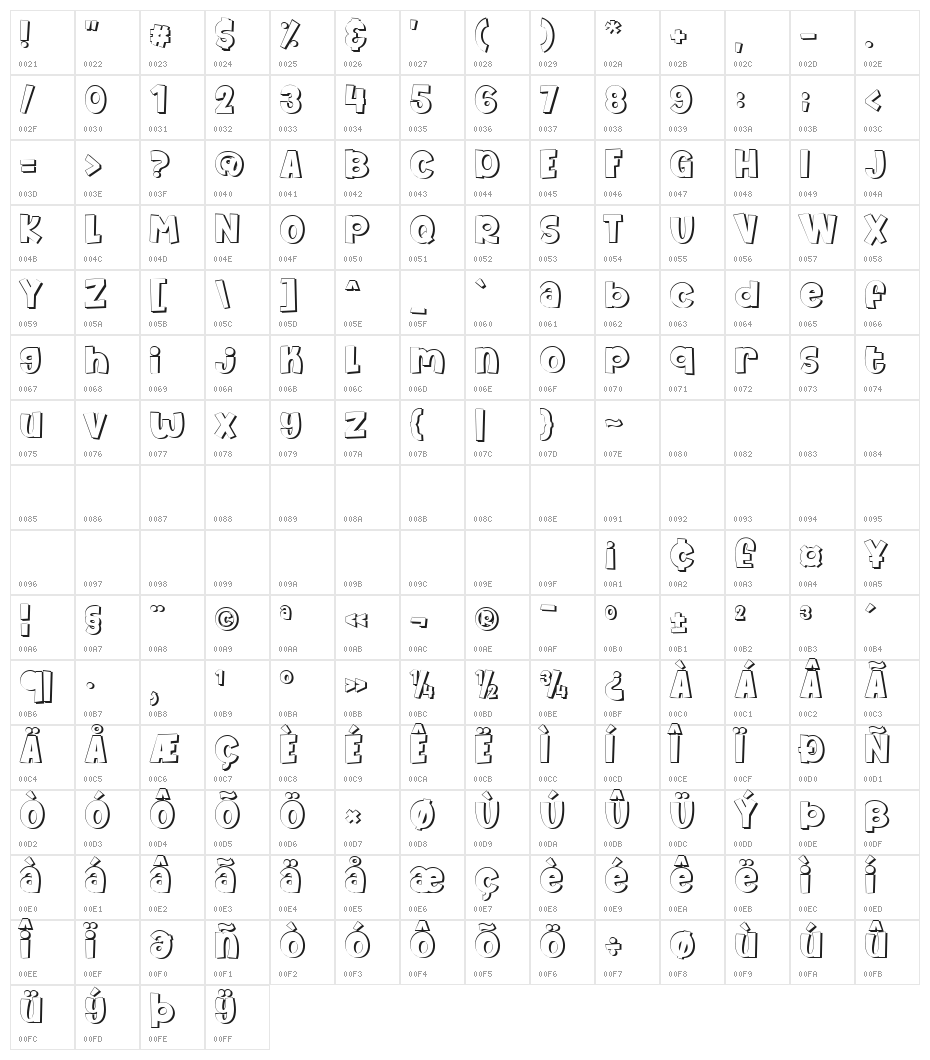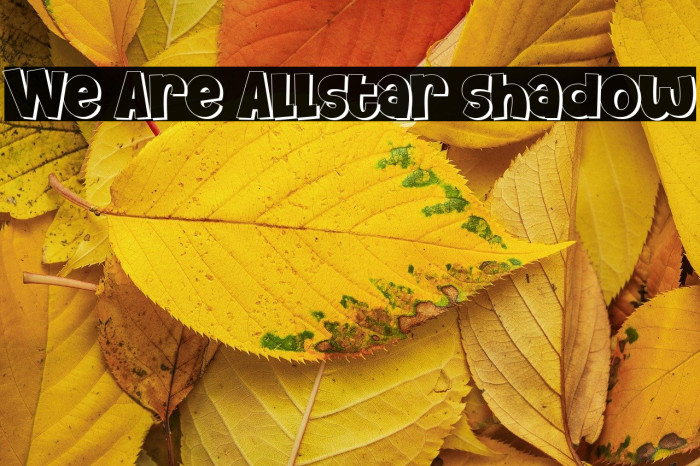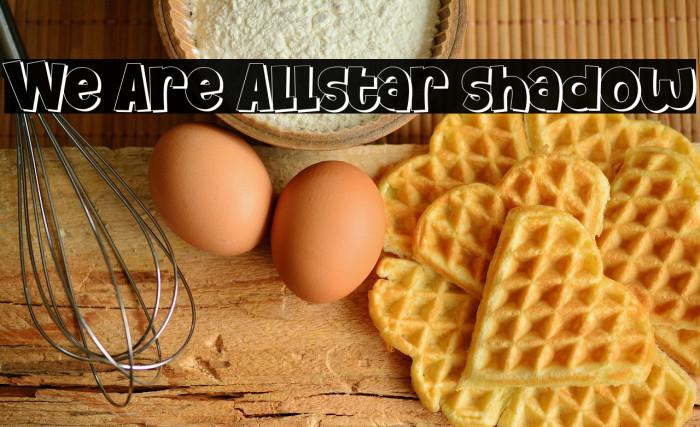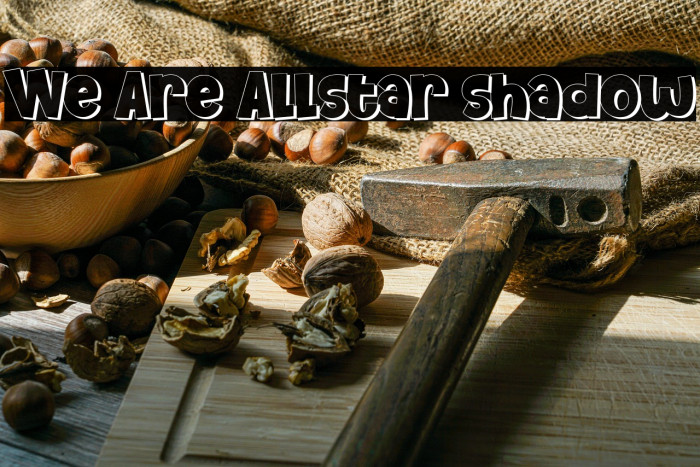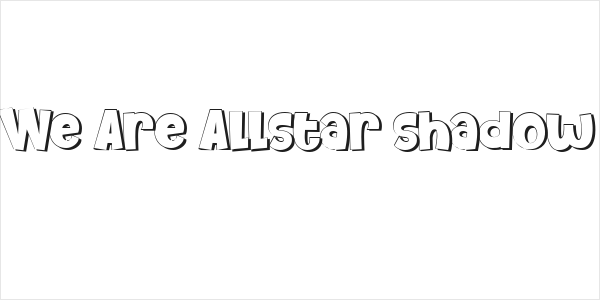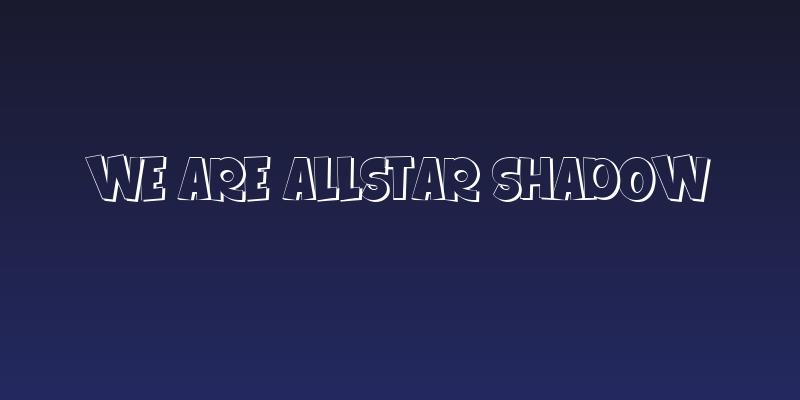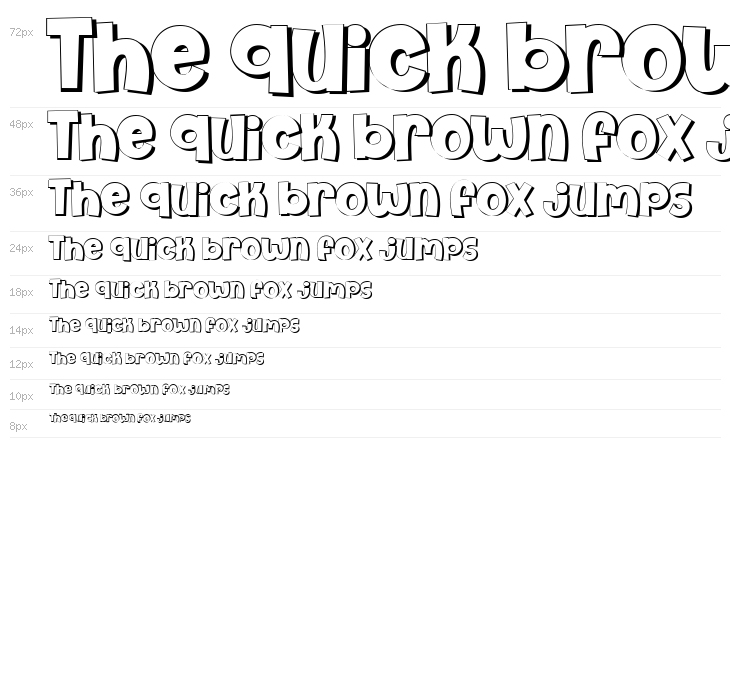
We Are Allstar shadow Font
We Are Allstar shadow Description
This playful and bold font features a distinctive shadow effect that gives each character a three-dimensional appearance. The letters are thick and rounded, with a cartoonish style that adds a sense of fun and whimsy. The uppercase and lowercase letters maintain a consistent width, while the numbers and special characters follow the same playful design. The shadow effect enhances the visual impact, making it ideal for eye-catching designs. This font is perfect for projects that require a lively and energetic feel.
| Overall Style | Playful, Cartoonish |
| Proposed Projects | Ideal for children's books, comic strips, playful branding, and party invitations. |